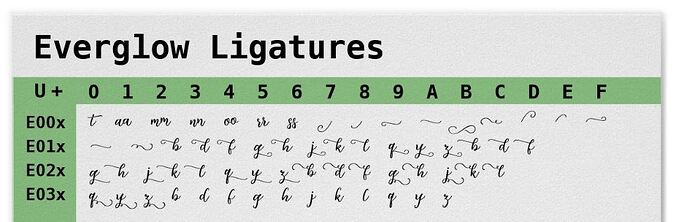
One of the new fonts is Everglow, which I really like. However, I can’t find any information about glyphs or anything, because the only Everglow script font that comes up in an internet search is one of those cluncky retro script fonts. Does anybody know anything about this particular Everglow font, like the designer, or if there’s any glyphs?
Here’s a partial list of the Everglow ligatures:
So it looks like U+E007 through U+E00F are ligatures that have good potential as universal swashes.
That’s these 9 glyphs (looking nothing like their chart counterparts):
Oh and I guess these two glyphs (U+E010, U+E011) as well: